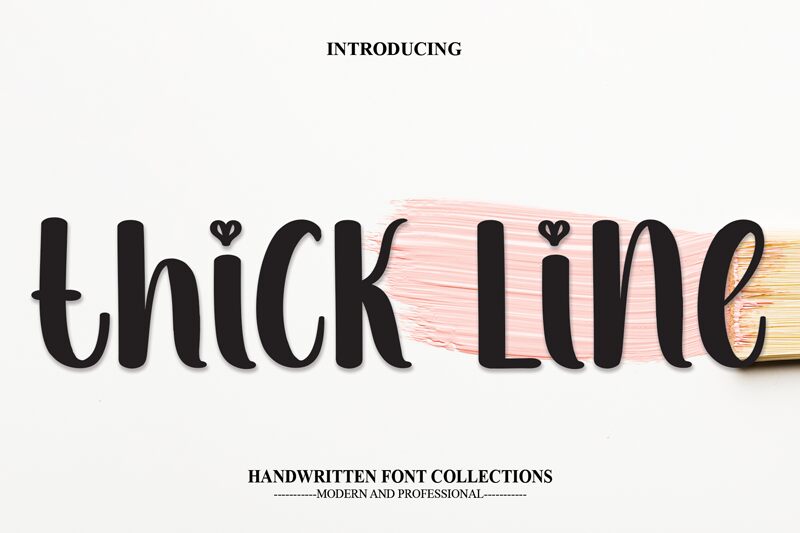
Thick Line
Thick Line is a captivating brush-style font designed by Andi Moz. Its bold, condensed strokes exude a distinctive character, blending the effortless fluidity of handwritten calligraphy with a modern, edgy aesthetic.
This font's versatility shines through in its ability to command attention, making it a compelling choice for a wide range of design applications, from eye-catching headlines and logos to impactful branding and packaging.
Thick Line's striking visual presence and emotive qualities make it an ideal tool for designers seeking to create a bold, memorable impact.